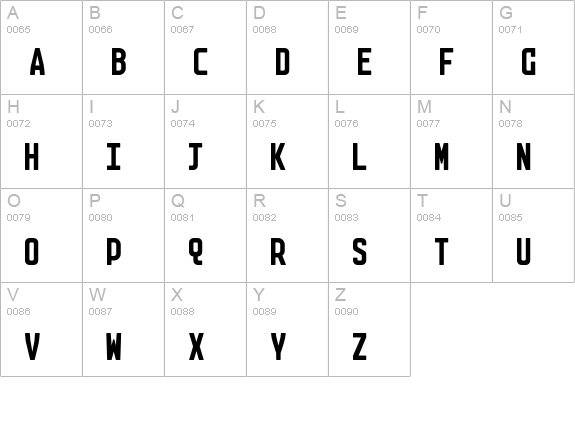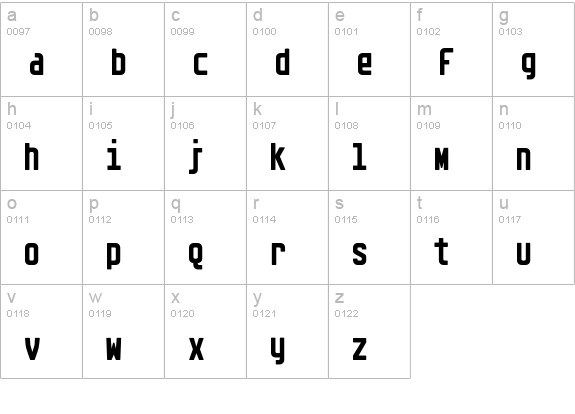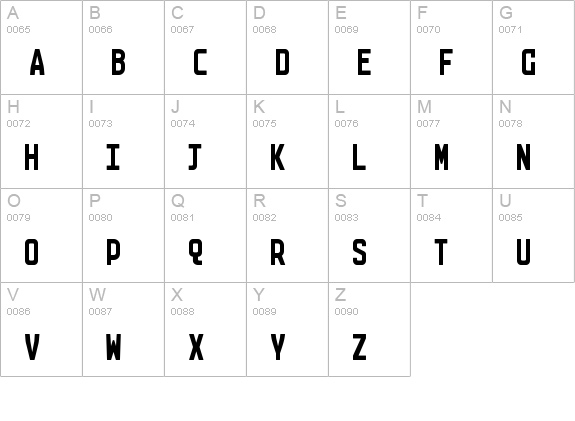
Arete-Mono is a stylish and modern monospaced font that exudes sophistication and elegance. With its clean lines and balanced proportions, Arete-Mono is perfect for a wide range of design projects, from coding to branding and everything in between. This versatile font features a timeless aesthetic that is both sleek and professional, making it ideal for both digital and print applications. What sets Arete-Mono apart is not only its impeccable design, but also the fact that it is completely free to download. That's right, you can access this high-quality font at no cost, making it a valuable addition to any designer's toolkit. Simply head over to FontsMarket.com to download Arete-Mono and start incorporating its timeless beauty into your projects today.